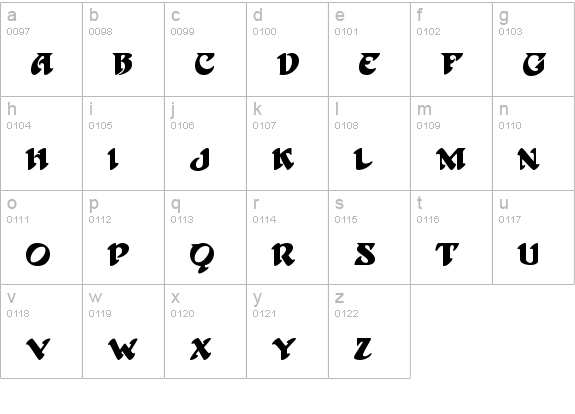
Hoffman MF font is a modern and stylish typeface that exudes elegance and sophistication. Its clean lines and balanced proportions make it suitable for a wide range of design projects, from branding to editorial layouts. The versatility of Hoffman MF font allows it to be used in both headings and body text, ensuring a cohesive and polished look throughout your designs. What sets Hoffman MF font apart is not only its aesthetic appeal but also the fact that it is available for free. Yes, you read that right - this stunning font can be downloaded at no cost from FontsMarket.com. Whether you are a professional designer looking to add a new font to your collection or a hobbyist seeking to enhance your creative projects, Hoffman MF font is the perfect choice for anyone looking for a high-quality typeface without breaking the bank. Download it today and elevate your designs with the timeless elegance of Hoffman MF font.